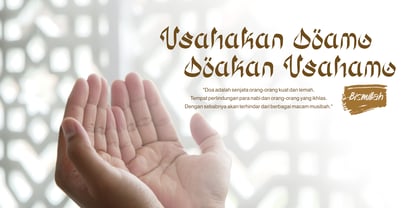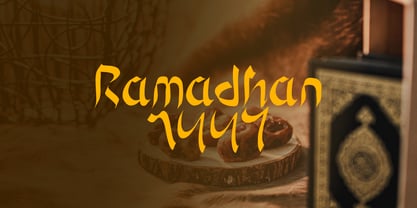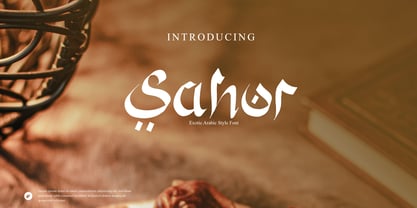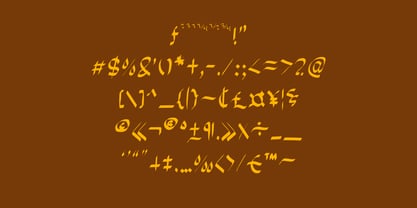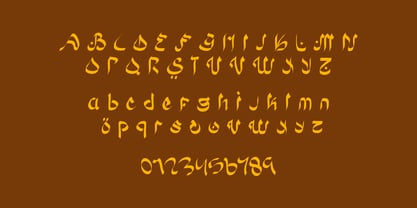
Sahur
by WAP Type
The Sahur Font Family was designed by Wahyu Aji Prasetyo and published by WAP Type. Sahur contains 1 styles. More about this family
Present an elegant and artistic Middle Eastern feel in each of your designs. Sahur is an Arabic-inspired font with firm, exotic, and strong character calligraphic curves. Suitable for: 🕌 Islamic Design & Ramadhan 🏷️ Branding perfume, hijab, or muslim clothing 📜 Da'wah & religious event poster 🎨 Middle East themed logo 📦 Premium packaging 📱 Instagram & TikTok aesthetic content The characters of the letters have an ornamental touch typical of Arabic calligraphy but are still easy to read in the Latin alphabet format. 💎 Impressions shown: Elegant • Mystical • Luxury • Religious • Cultural